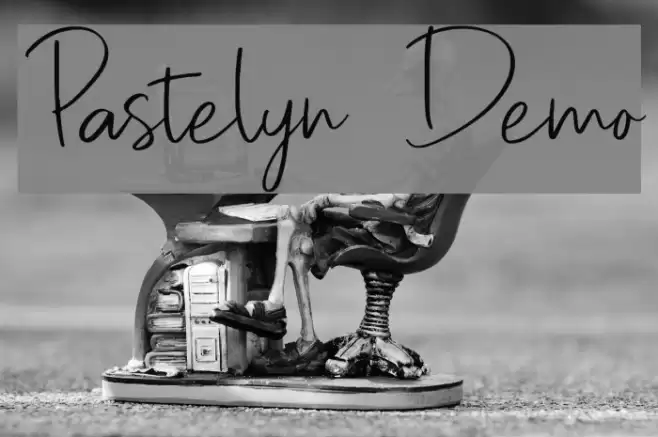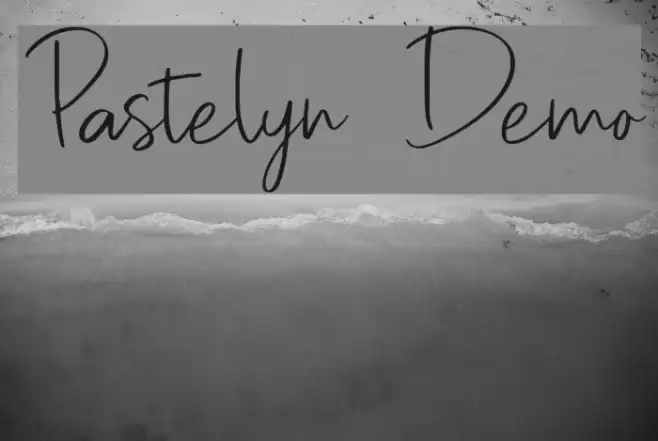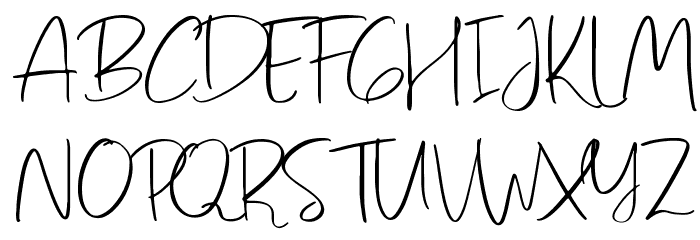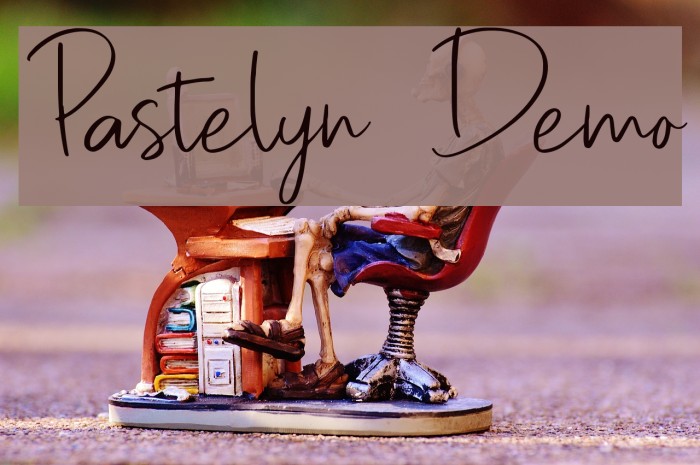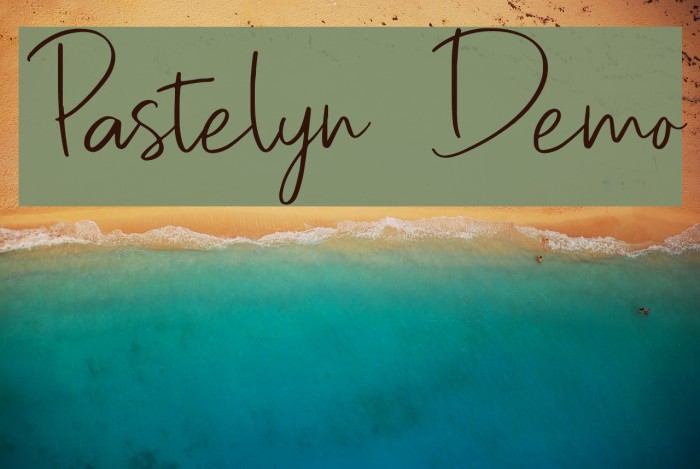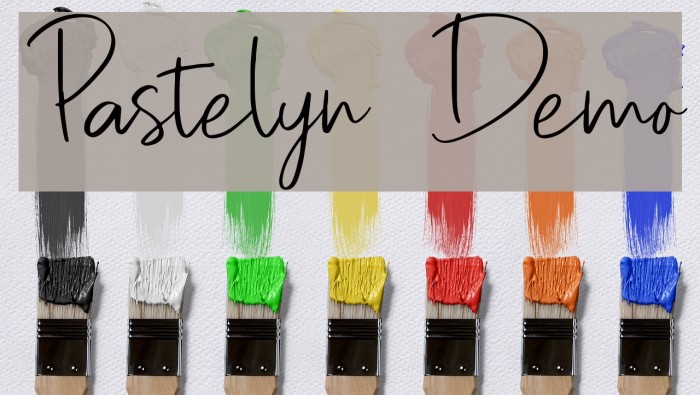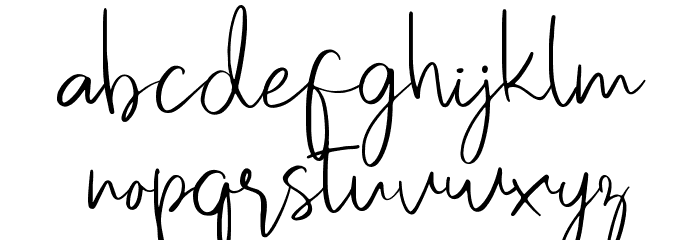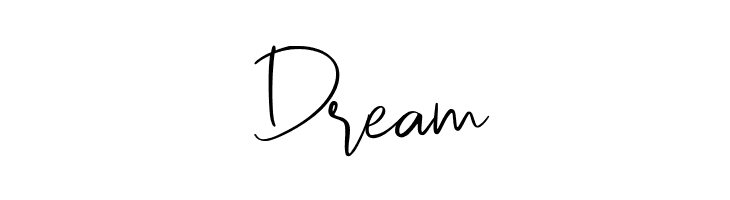
Pastelyn Demo Font
Pastelyn Demo Description
This font features a playful and whimsical handwritten style, characterized by its flowing and interconnected strokes. The uppercase letters are tall and slender, with a slight slant that adds a dynamic feel. The lowercase letters maintain a consistent height, with loops and curves that enhance its casual appearance. The overall design is informal yet elegant, making it suitable for creative projects. The font's unique personality is evident in its varied line thickness, which adds a touch of spontaneity and charm.
A playful handwritten font with flowing, interconnected strokes and varied line thickness from Uncategorized fonts.
- Proposed Projects: Ideal for greeting cards, invitations, personal branding, and creative social media graphics.
- Overall Style: Casual, Playful
- Use Case: Logos, Invitations, Social Media Graphics